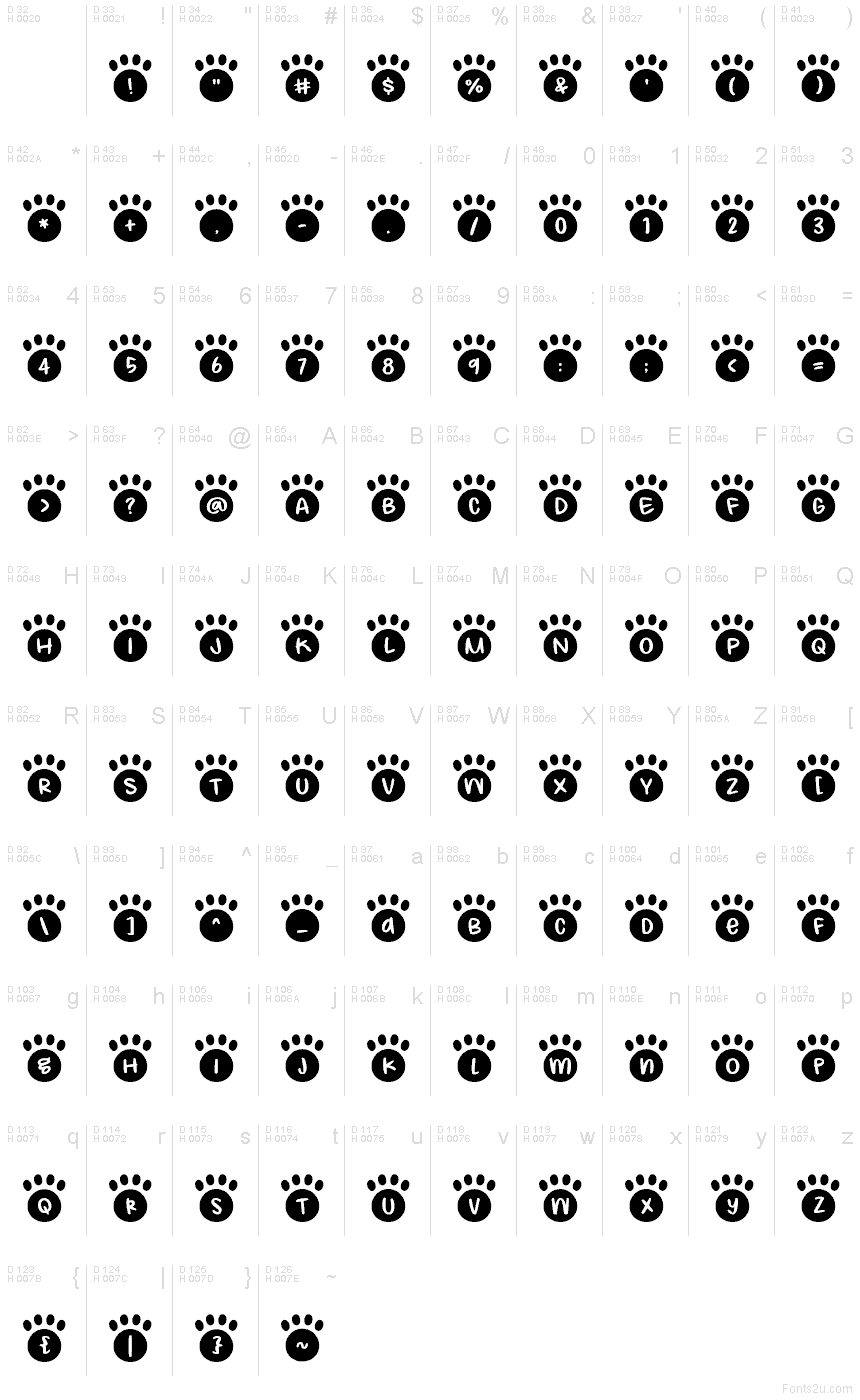
Pitter Paws Regular
Pitter Paws font by Brittney Murphy Design is a decorative display font with a playful theme and a lighthearted tone. Rounded elements, whimsical feel, and casual design give the alphabet letters an overall youthful vibe while maintaining their legibility.
Possible usages of this free font include book covers, video titles, notebooks, logos, invitations, trading cards, product labels & stickers. Badges for T-shirts and pants can be created using this amazing typeface as well.